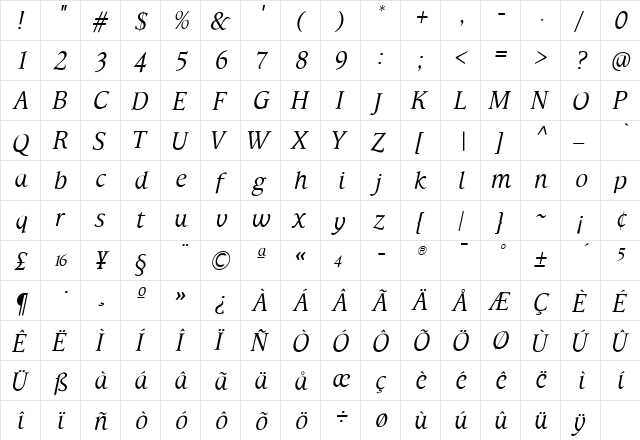
TFHabitat Book Italic Font Preview
TFHabitat Book Italic
| Foundry | JosephTreacy,Treacyfaces,Inc |
| Year | 1986 |
Design Context for TFHabitat Typeface
TFHabitat takes a measured approach to typography — its balanced proportions and neutral character make it a reliable workhorse for both digital and print work. Its italic angle brings a sense of urgency and motion to the letterforms.
Pro Tip: Use TFHabitat for emphasis, pull quotes, and subheadings where its slanted energy can add rhythm to the layout.